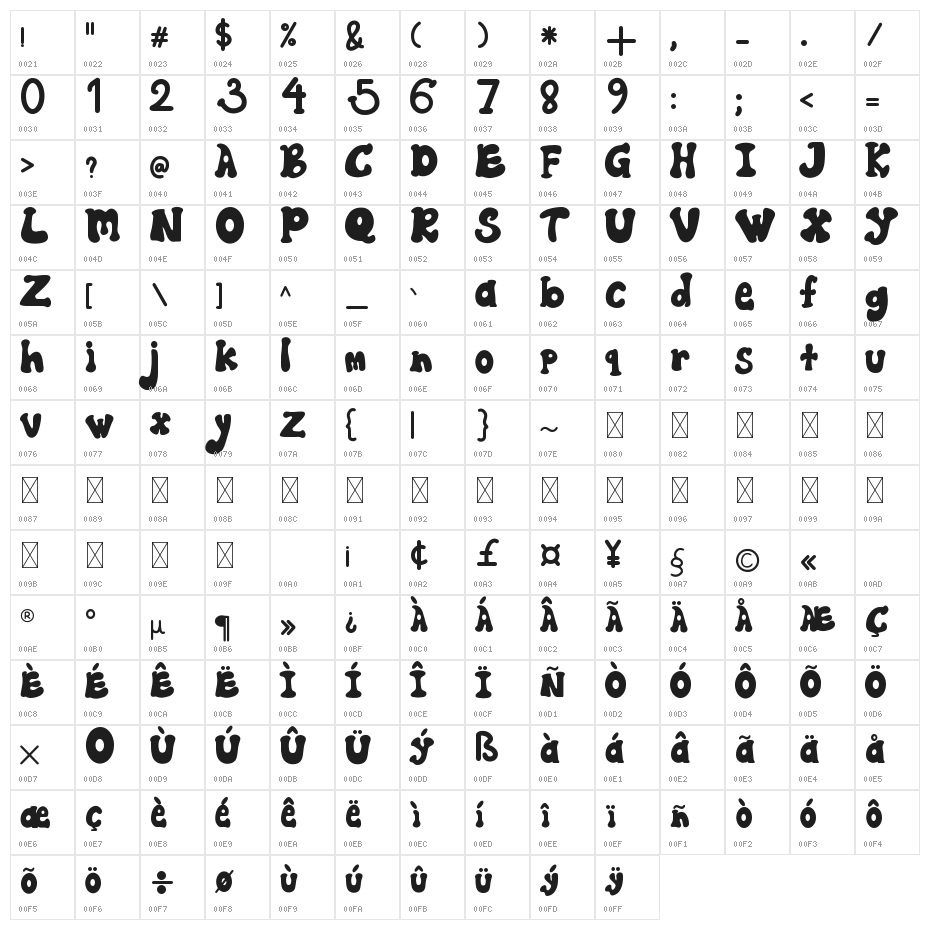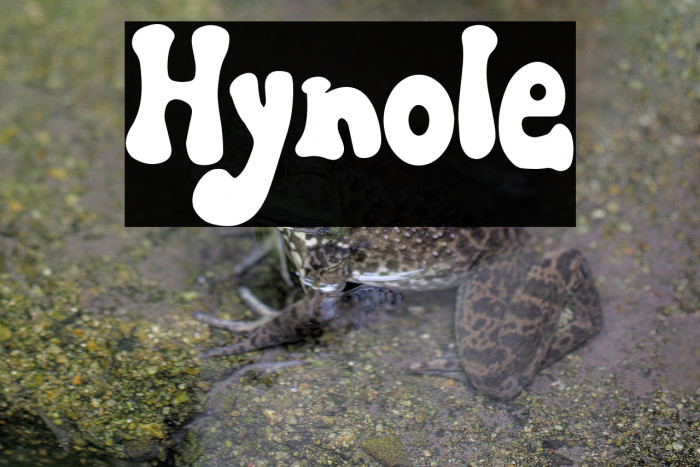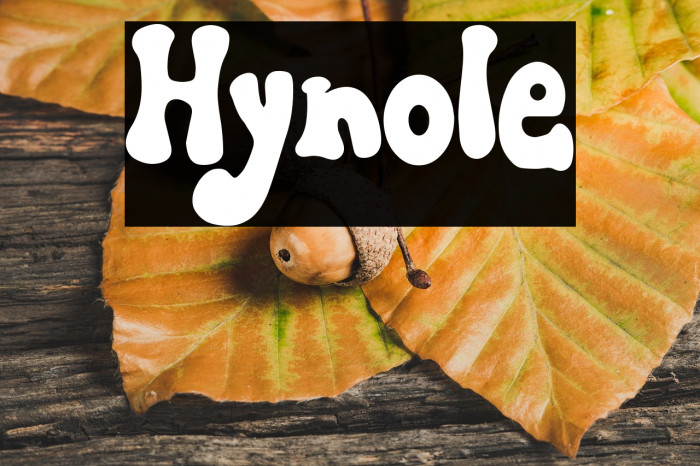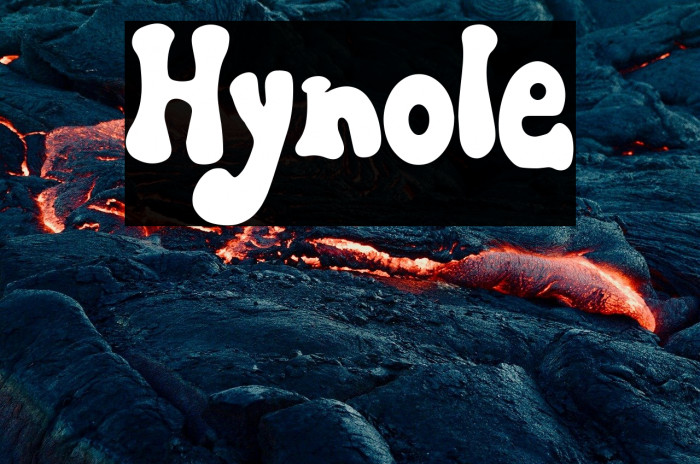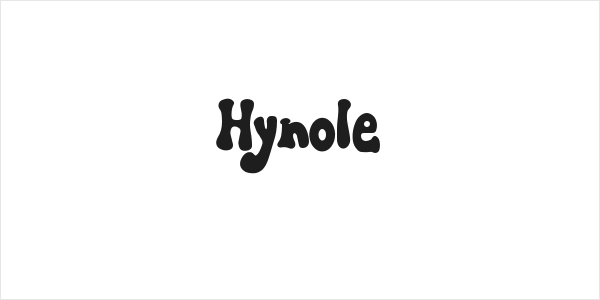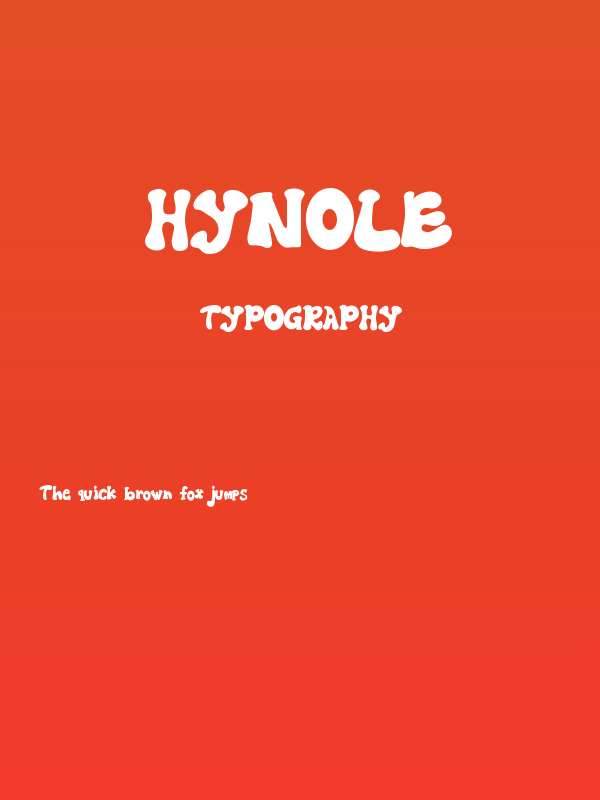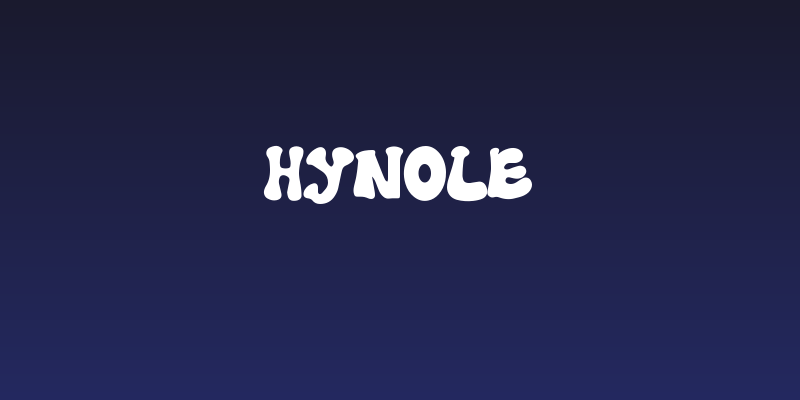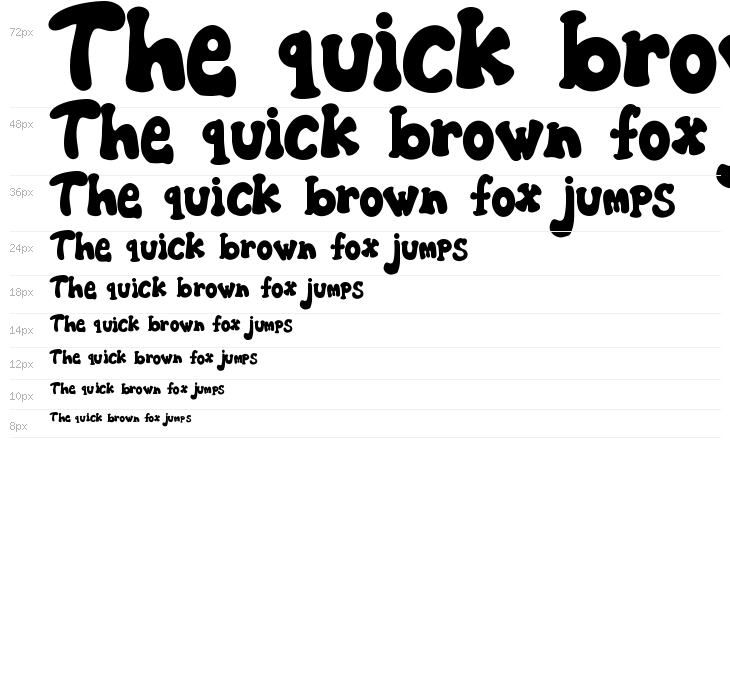
Hynole Font
Hynole Description
This font features a playful and bold design with a distinctly whimsical character. The letters are rounded and have an organic, almost hand-drawn quality, giving them a friendly and approachable feel. The strokes are thick and consistent, contributing to a strong visual impact. The overall appearance is somewhat reminiscent of cartoon or comic styles, making it ideal for projects that require a fun and engaging look. The numbers and special characters maintain the same playful style, ensuring consistency across all text elements.
| Overall Style | Playful, Whimsical |
| Proposed Projects | Ideal for children's books, comic strips, playful branding, and creative posters. |